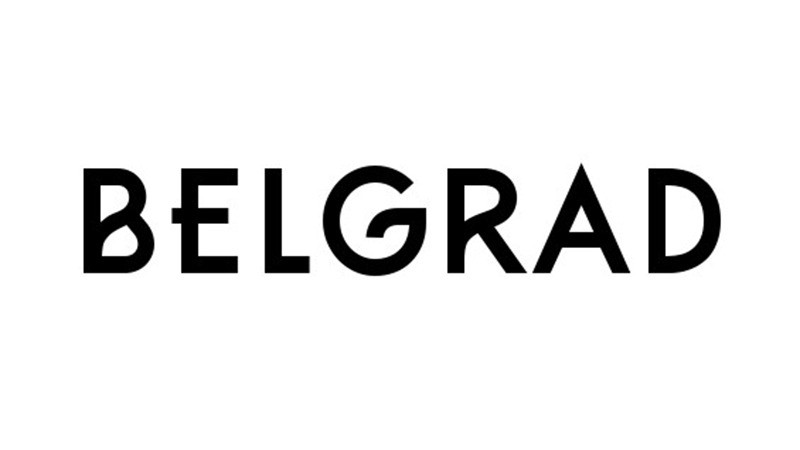
Belgrad Sans Serif Font
I started sketching my first typeface, inspired by German industry fonts from the late 19th century. I created a linear and constructed typeset based on the Futura by Paul Renner, mixed with elements from the Art Nouveau era. The Belgrad font is set in bold weight and contains all capital letters, numbers and various glyphs
based on the futura. Added some Art Nouveau elements.